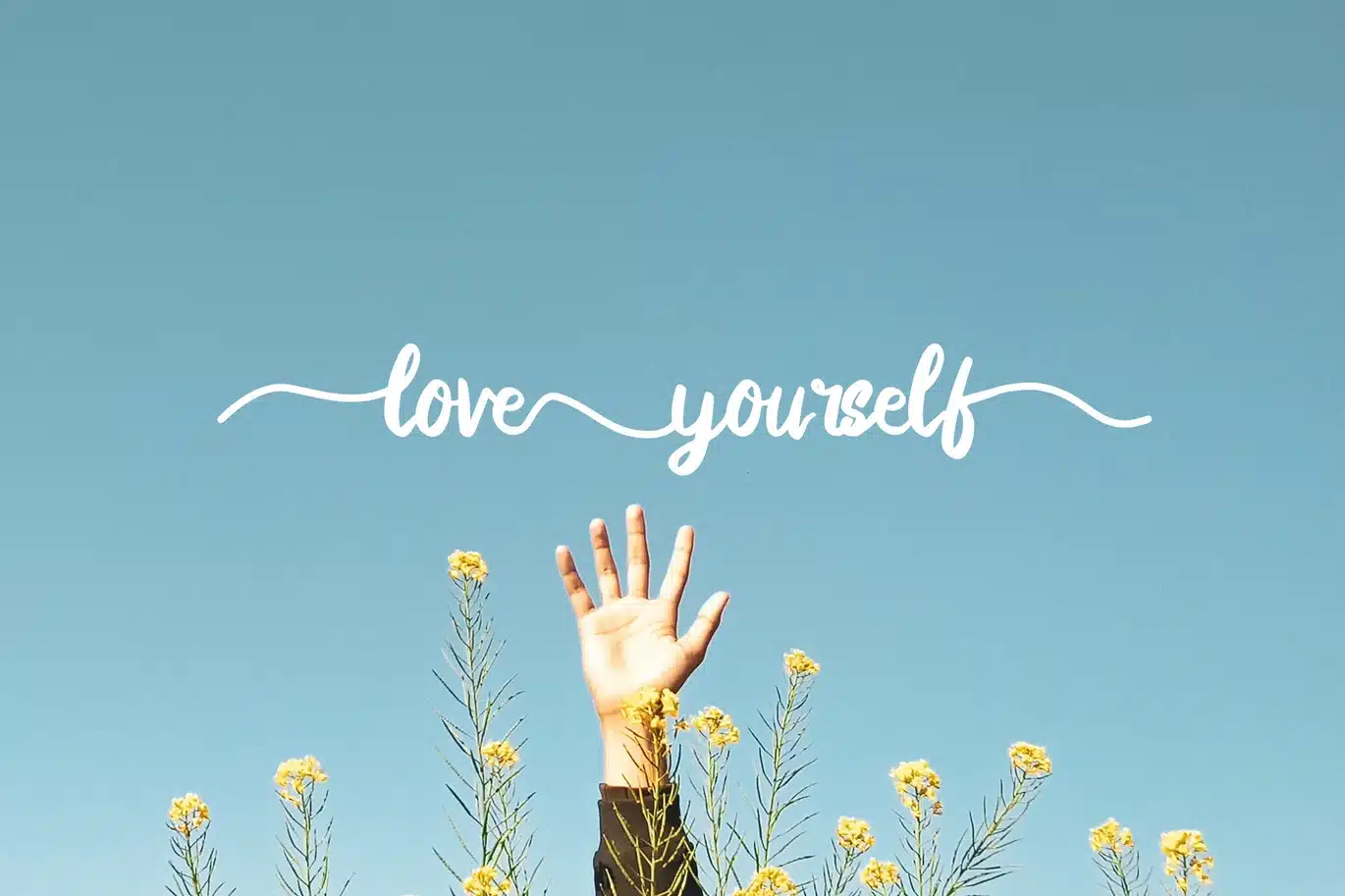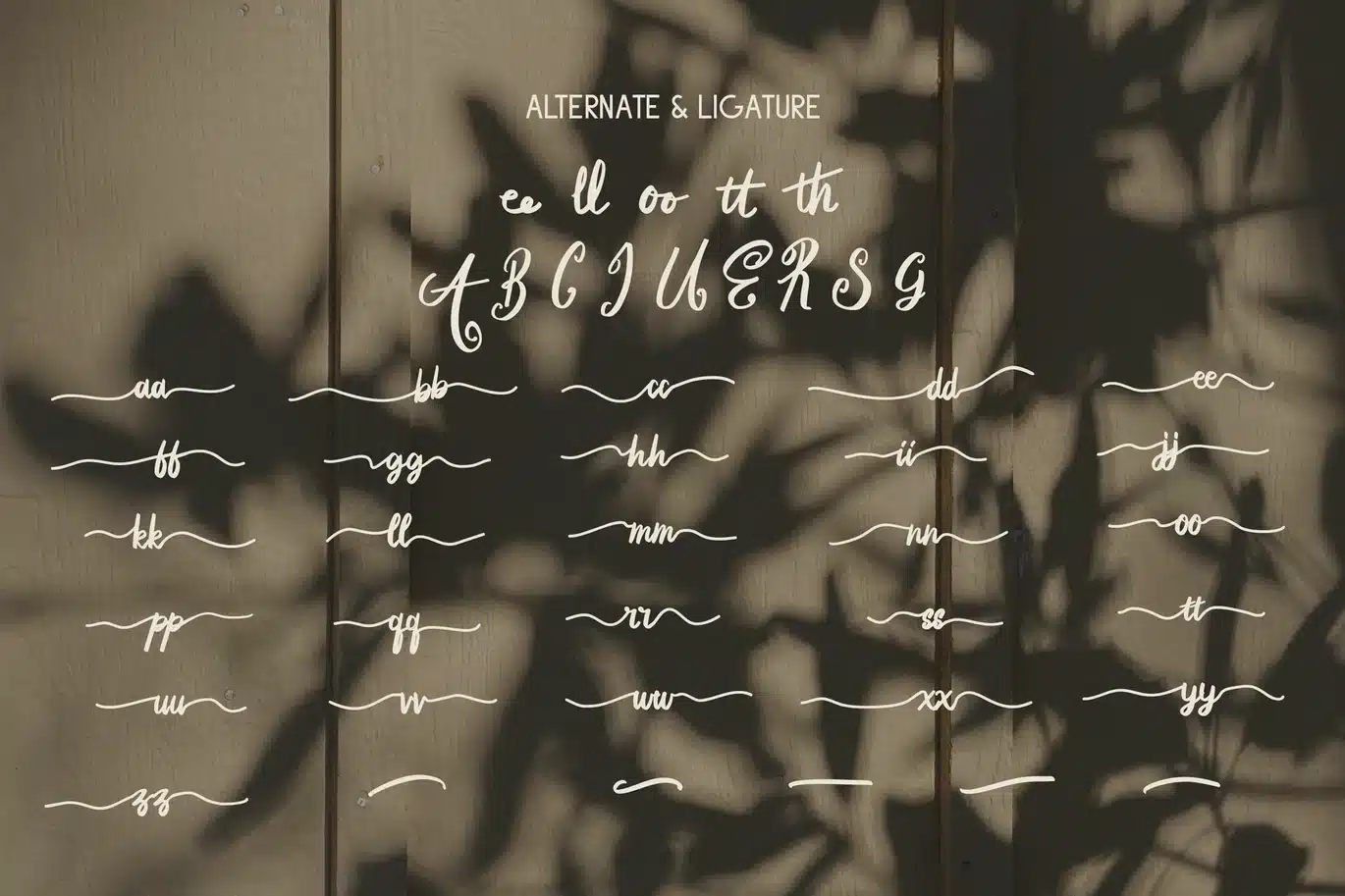
Angela – Beautiful Handwritten Font
Introducing Angela, is Beautiful Handwritten Font has has many purpose and suitable for wedding day, invitation, signature, fashion, classic modern, logotype, advertising and much more
- Available Ligatures and Alternates